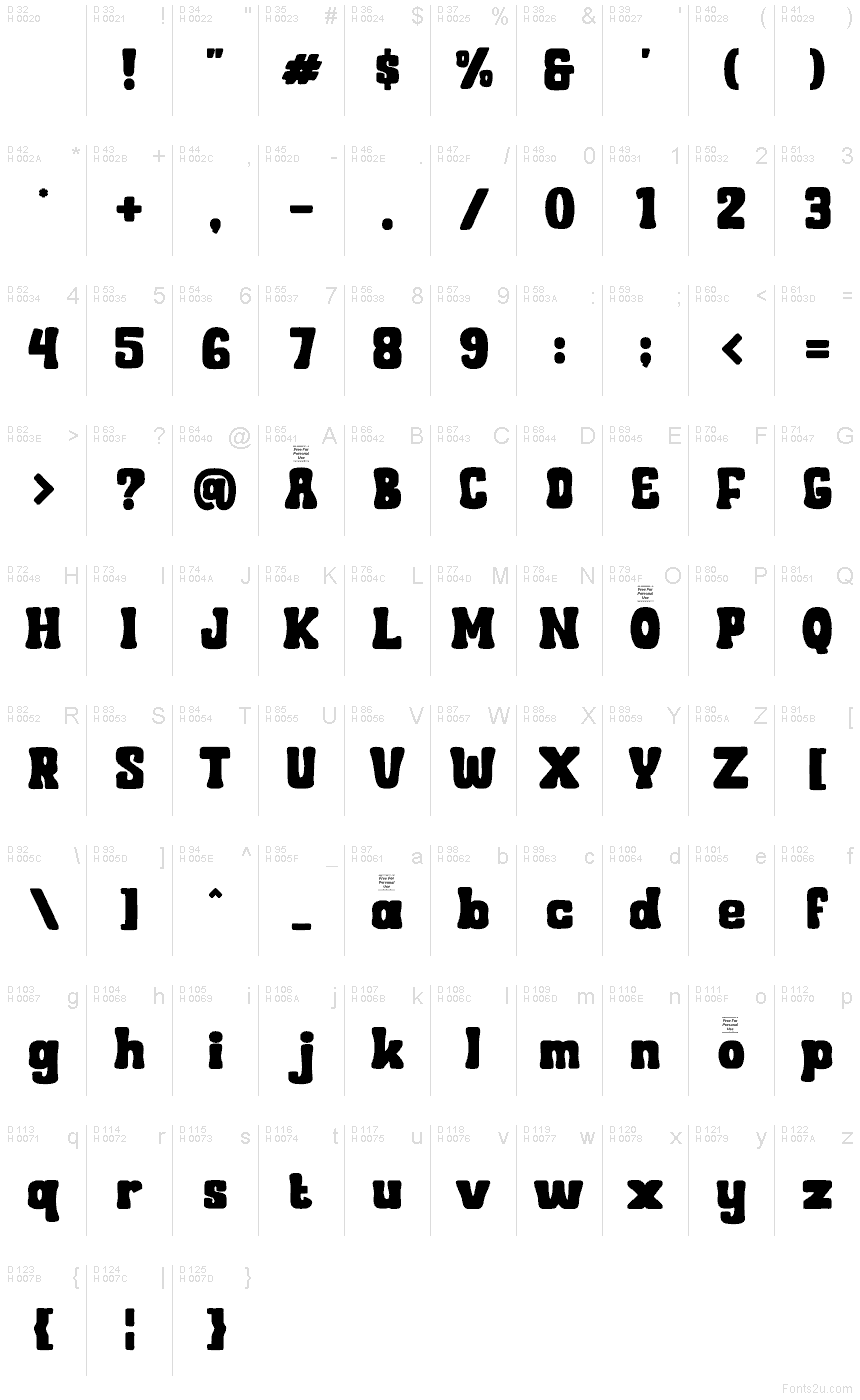
Bolevard Rolander
Bolevard Rolander font by Ermedia Studio is a free retro display font. Its defining move is that wonderfully swollen, inky weight—big cushioned curves and soft edges that feel like hand-pulled bubble letters straight off a 70s storefront. The rhythm is round and rolling, with chunky silhouettes that grab attention without getting shouty. Set it large and you’ll get that tactile, poster-ready pop.
Using Bolevard Rolander, headlines and wordmarks come out juicy and unmistakable. It shines on posters, album covers, cafe or bakery branding, packaging, event flyers, and playful merch. This free font works beautifully when you keep copy short and bold; pair it with a crisp, light grotesk for body text, and give it a touch of tight tracking to amplify the punch.